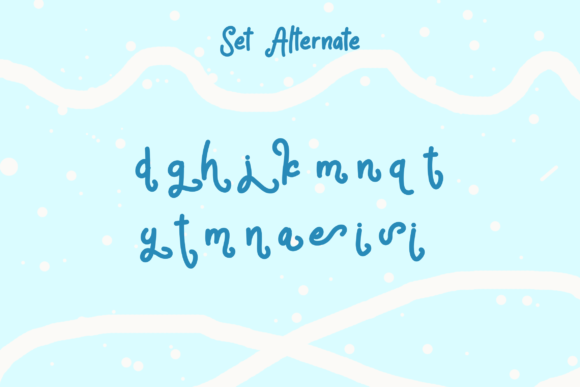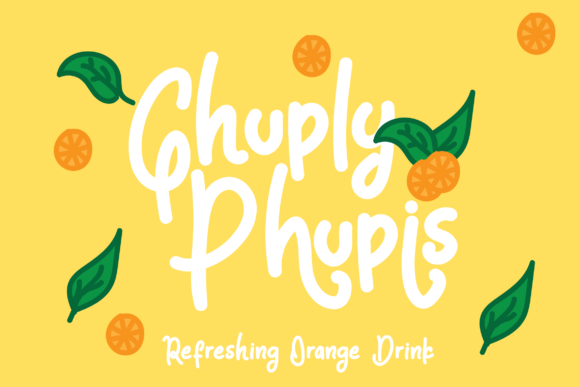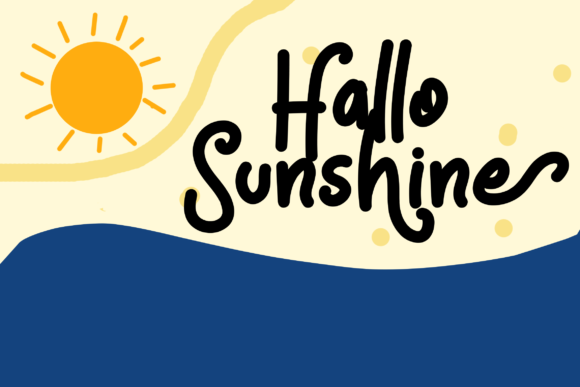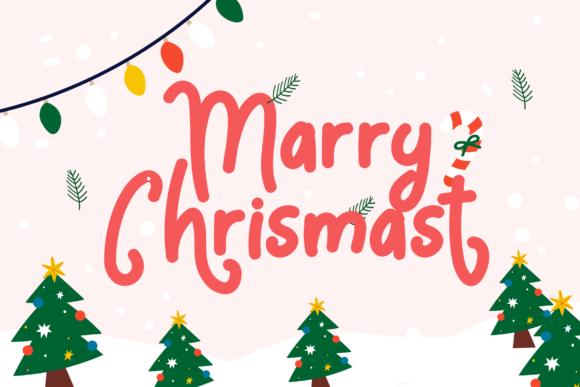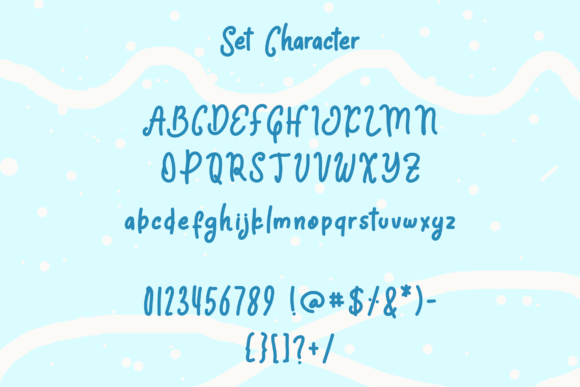
Introduction to Santo Candy Font
Santo Candy is a cute script font with a unique and assertive touch.
Santo Candy is a cute script font with a unique and assertive touch. It will be very nice to use on fashion magazines, logos, photography, landing pages, flyers, and many more,
Key Features of Santo Candy Font